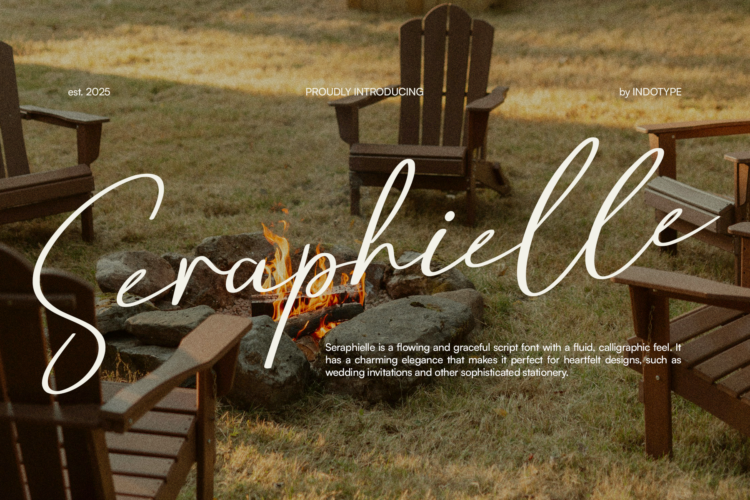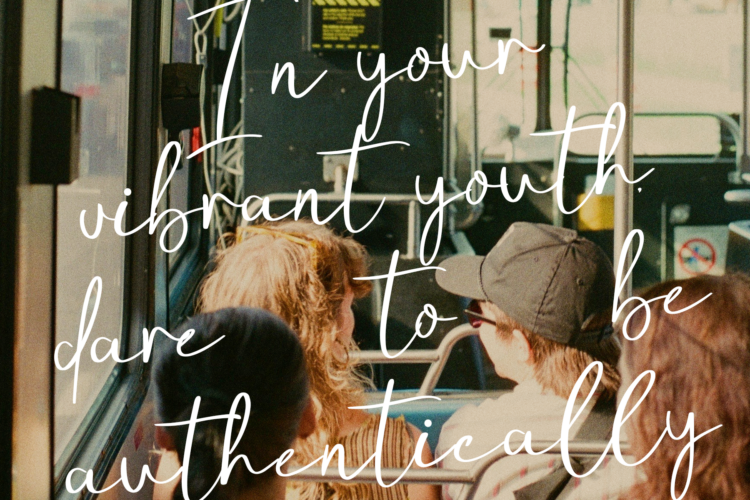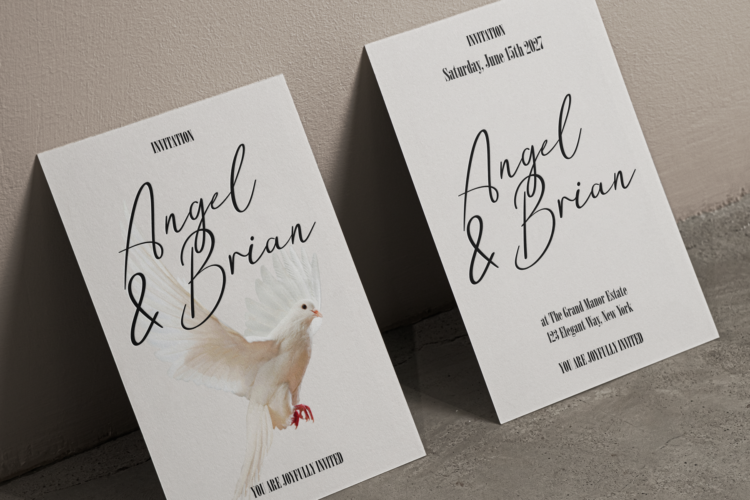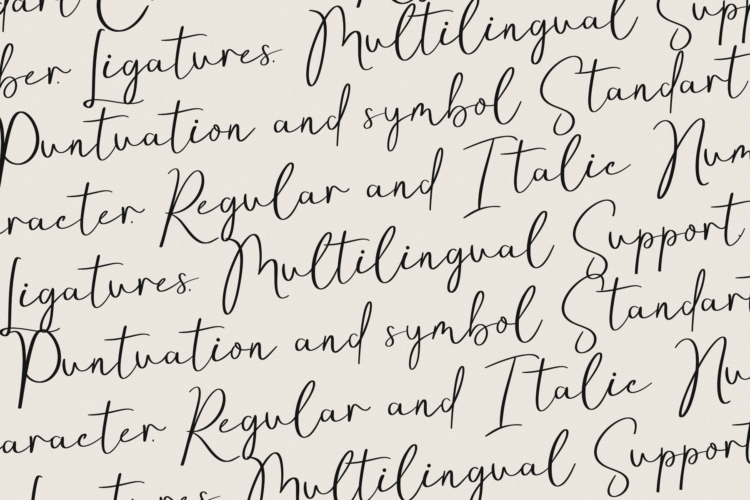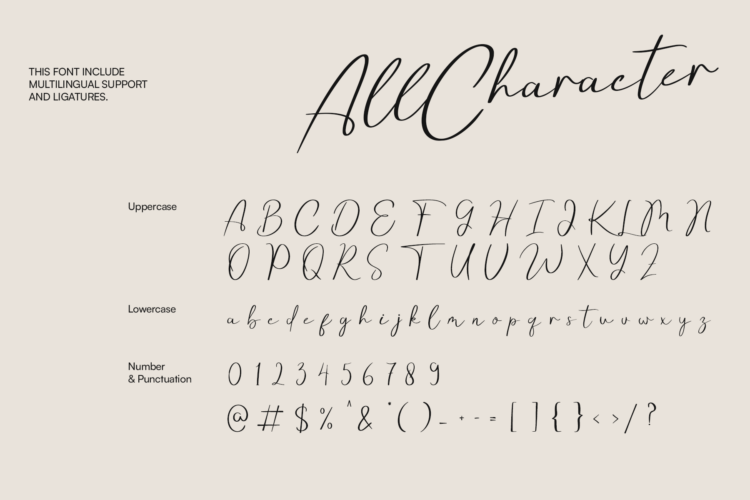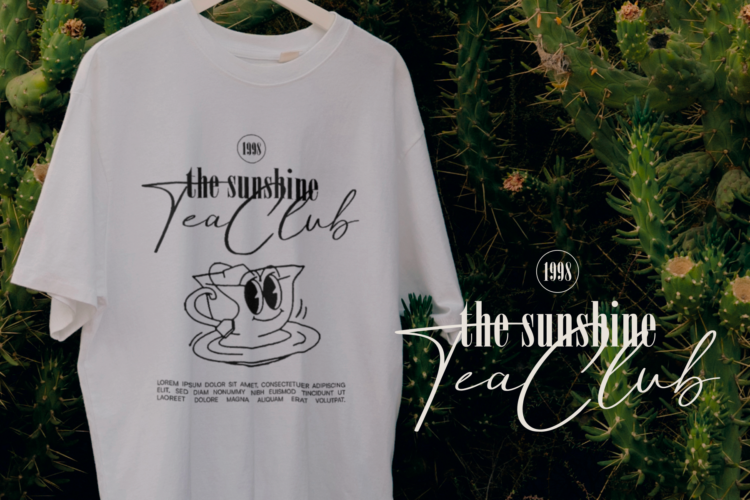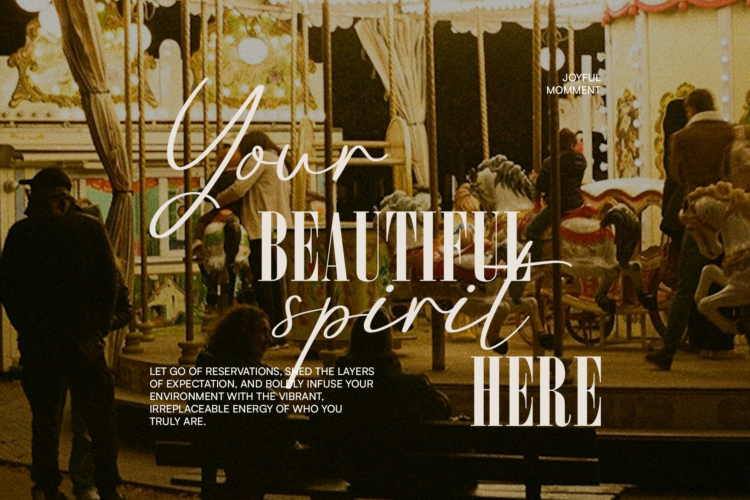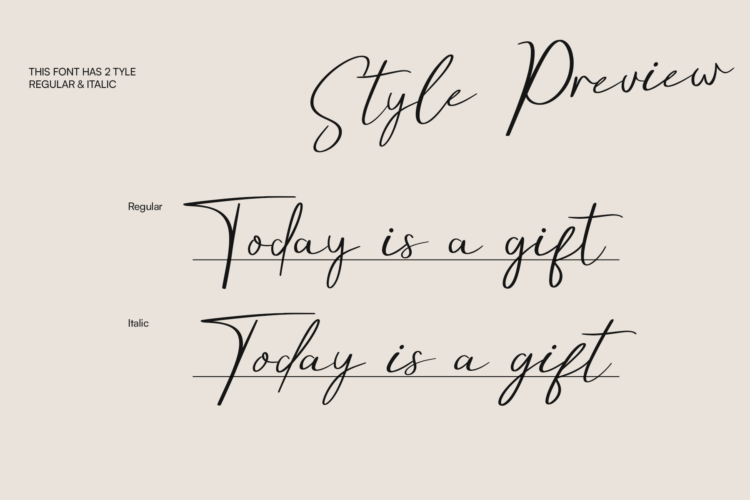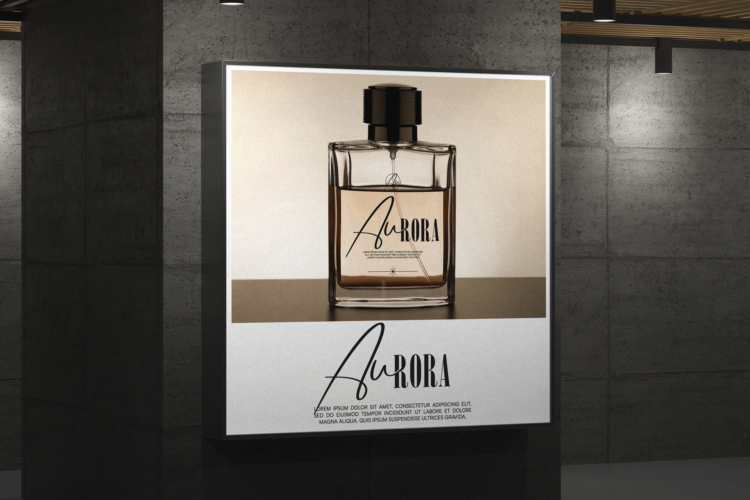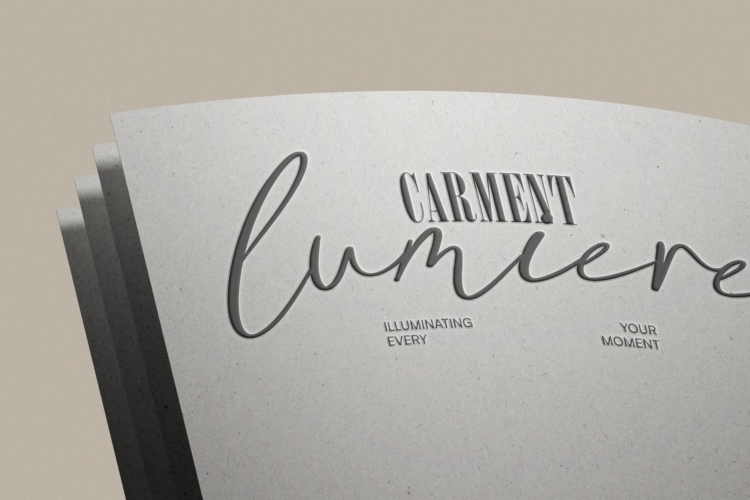
Seraphielle is a flowing and graceful script font with a fluid, calligraphic charm that radiates timeless elegance. Each stroke is carefully crafted to emulate natural handwriting, resulting in a typeface that feels warm, personal, and refined. With its delicate curves and sweeping letterforms, Seraphielle is ideal for wedding invitations, greeting cards, personal branding, stationery, packaging, quotes, and editorial projects. Its enchanting style makes every word look heartfelt and sophisticated. The font includes a complete set of uppercase and lowercase letters, multilingual support, numerals, and punctuation, giving designers everything they need to create polished, professional designs. Created by Indotype in 2025, Seraphielle is more than just a script font—it’s a celebration of artistry, romance, and elegance.